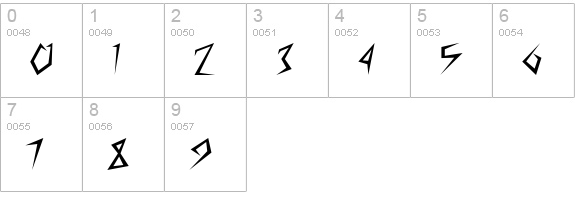
Cunei- Font Details
Cunei is a beautifully crafted font that exudes elegance and sophistication. Its timeless design and clean lines make it perfect for a wide range of design projects, from branding to editorial. The Cunei font is versatile and highly legible, making it a great choice for both digital and print applications. What sets Cunei apart is not only its aesthetic appeal but also the fact that it is available for free. Yes, you read that right - this stunning font can be downloaded at no cost from FontsMarket.com. This means that you can elevate your designs without breaking the bank, all thanks to the generosity of the font's creators. Whether you're working on a website, a poster, a logo, or any other project that requires a touch of sophistication, Cunei is sure to impress. Download it today and experience the beauty and versatility of this incredible font for yourself!